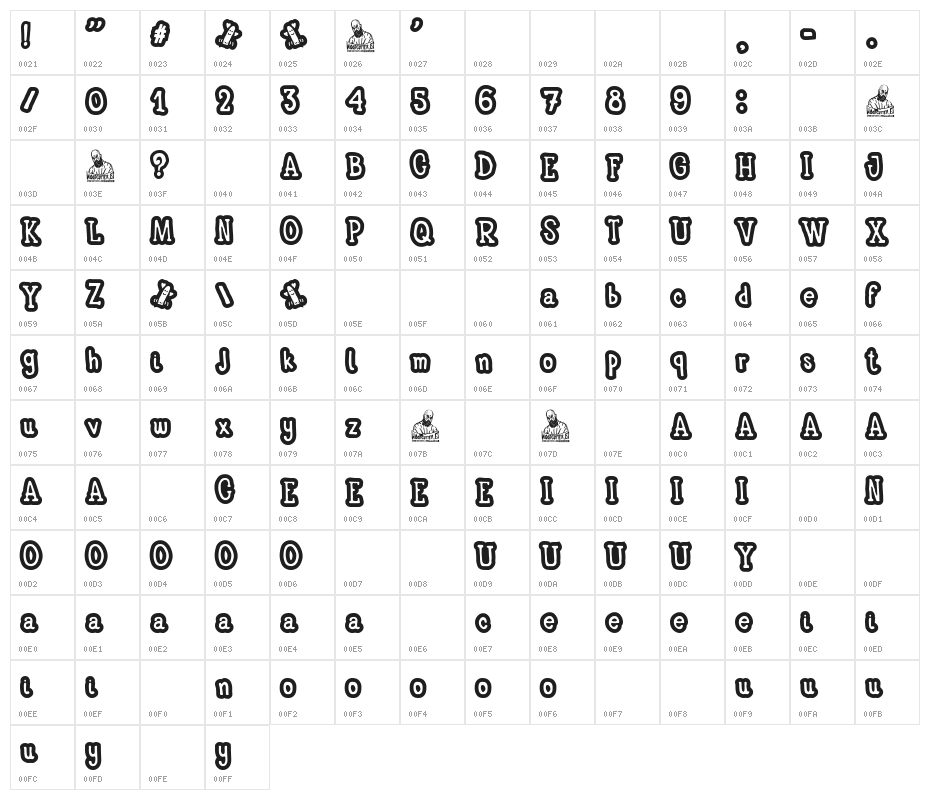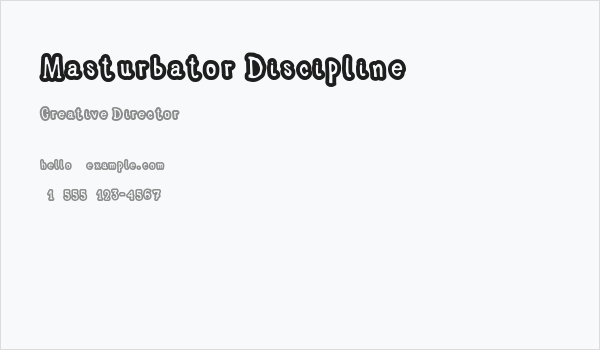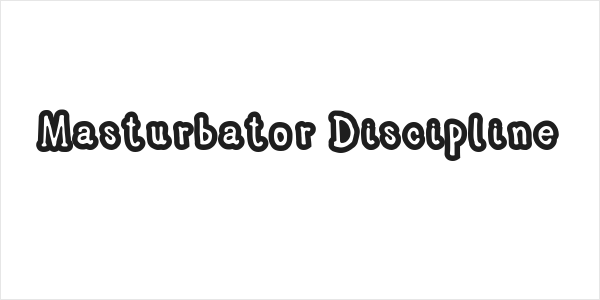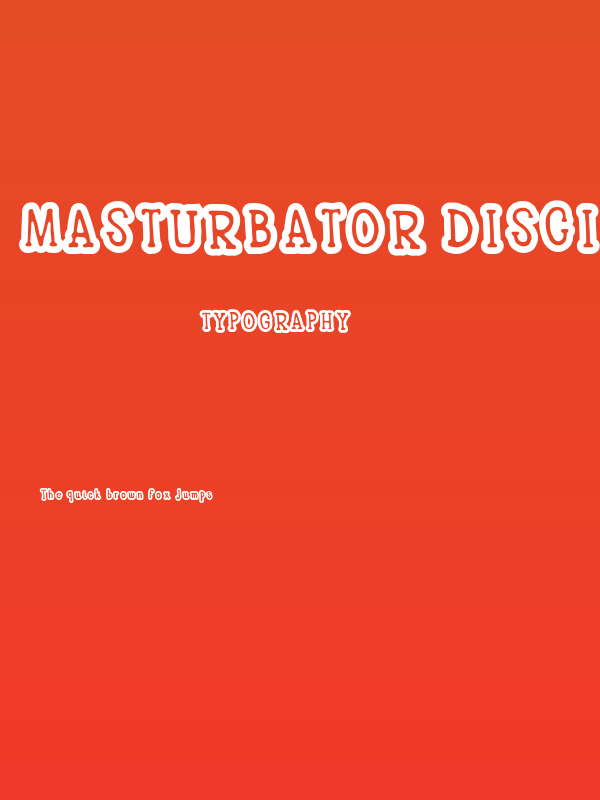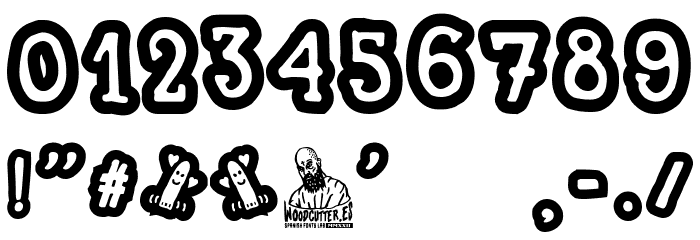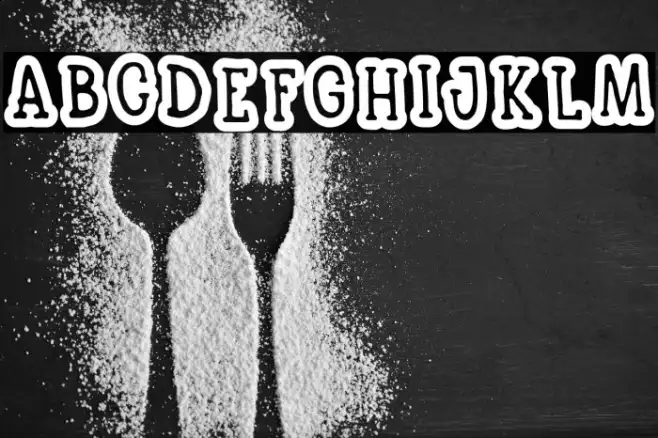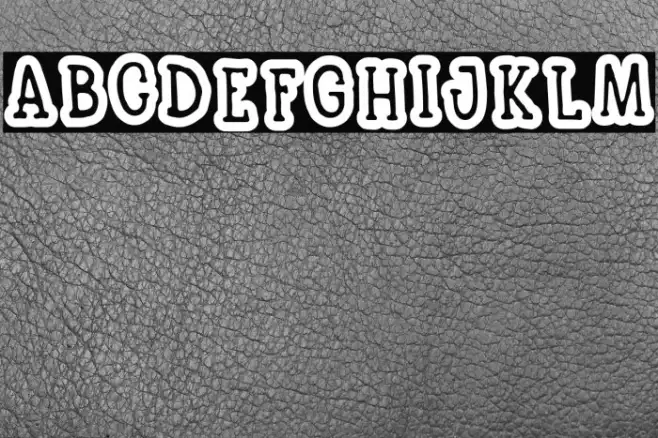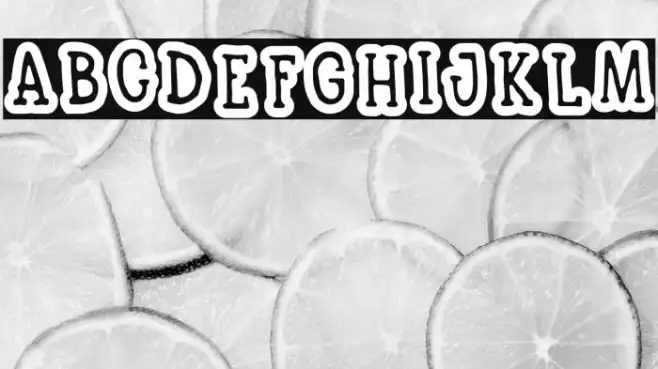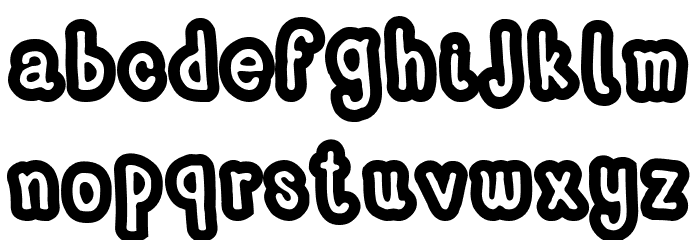
Masturbator Discipline Font
Masturbator Discipline Description
This font features a bold and playful style with thick outlines and a cartoonish appearance. The uppercase and lowercase letters are designed with a consistent, rounded shape that gives a sense of fun and whimsy. The numbers and special characters follow the same playful aesthetic, making the font suitable for creative and informal projects. The bold outlines enhance visibility and add a layer of depth, making it stand out in various design contexts.
| Overall Style | Playful, Cartoonish, Fun |
| Proposed Projects | Ideal for children's books, comic strips, playful branding, and party invitations. |